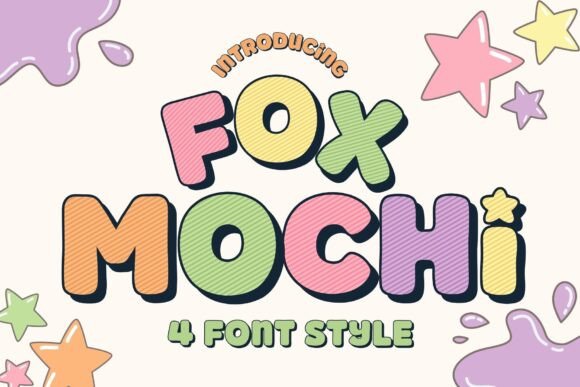
Introducing Fox Mochi Font: The Ultimate Delight for Your Designs
Are you looking for a font that can add a touch of joy and creativity to your projects? Look no further than Fox Mochi Font! This delightful, hand-drawn font is designed to bring a playful and cheerful vibe to your designs, making it perfect for a wide range of applications. In this article, we’ll explore the features and benefits of Fox Mochi Font, and show you how it can elevate your designs to the next level.
What is Fox Mochi Font?
Fox Mochi Font is a handcrafted, handwritten font that features soft, rounded shapes and a playful aesthetic. With its unique and charming design, this font is sure to capture the attention of your audience and leave a lasting impression. Whether you’re creating branding materials, kids’ products, greeting cards, or social media content, Fox Mochi Font is the perfect choice.
Key Features of Fox Mochi Font
- 4 Unique Styles: Fox Mochi Font comes in four unique styles: Regular, Strokes, Outline, and Shadow. This versatility allows you to experiment with different looks and feels to find the perfect fit for your project.
- Handcrafted Look: The font features a soft, rounded design with a friendly and fun vibe. The handcrafted look of Fox Mochi Font gives it a unique and personal touch that sets it apart from other fonts.
- Perfect for: Fox Mochi Font is perfect for a wide range of applications, including logos, posters, product packaging, apparel, and creative projects.
The Benefits of Using Fox Mochi Font
So, why should you choose Fox Mochi Font for your designs? Here are just a few benefits of using this delightful font:
- Adds a Touch of Joy and Creativity: Fox Mochi Font is designed to bring a playful and cheerful vibe to your designs. With its soft, rounded shapes and handcrafted look, this font is sure to add a touch of joy and creativity to your projects.
- Perfect for Kids’ Products and Designs: The playful and cheerful design of Fox Mochi Font makes it perfect for kids’ products and designs. Whether you’re creating toys, games, or educational materials, this font is sure to delight your young audience.
- Great for Branding and Marketing Materials: Fox Mochi Font is also great for branding and marketing materials, such as logos, brochures, and social media graphics. The font’s unique and charming design is sure to help your brand stand out from the crowd.
How to Use Fox Mochi Font in Your Designs
- Experiment with Different Styles: Fox Mochi Font comes in four unique styles, so don’t be afraid to experiment and find the perfect look for your project.
- Pair with Other Fonts: Fox Mochi Font pairs well with other fonts, so try combining it with a bold or serif font to create a unique and interesting look.
- Use for Headings and Titles: Fox Mochi Font is perfect for headings and titles, so try using it to add a touch of personality to your text.